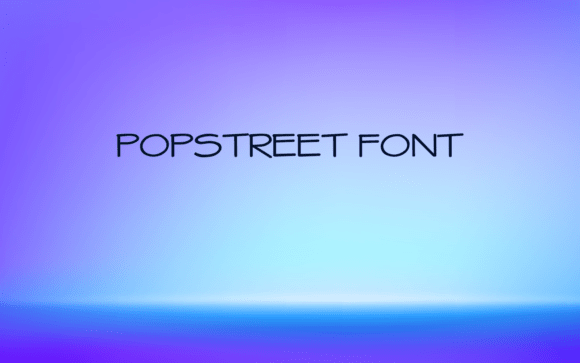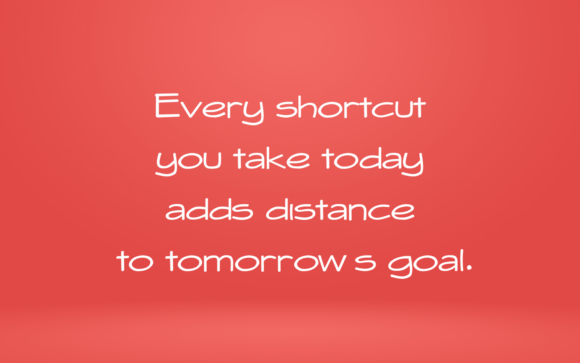
Popstreet Font: A Cute Handwritten Font for Social Media Design
About the Popstreet Font
Get ready to be inspired by Popstreet Font, a fresh and dynamic typeface for modern creators. Popstreet is a lovely and timeless handwritten font. It is the best choice for creating eye catching logos, branding and quotes. Every letter has a unique and beautiful touch, which will make your design come alive!
Popstreet’s expressive, handwritten style excels in headlines, short-form text, and branding applications where a personal touch is desired. It works particularly well for logos, short quotes, and packaging design for products targeting a younger, more casual audience. However, its informal nature makes it unsuitable for body text or lengthy paragraphs, as readability suffers. Avoid using it in UI contexts requiring high legibility.
Pairing Popstreet effectively requires considering its playful energy. A clean, geometric sans-serif like Montserrat would create a strong contrast and modern feel, balancing Popstreet’s hand-drawn informality. Alternatively, a more traditional serif like Garamond could add a touch of elegance and sophistication, grounding the design. Avoid pairing it with other script fonts, as this could lead to visual clutter.
Popstreet projects a friendly and approachable personality, ideal for brands focused on creativity, lifestyle, and community engagement. Its inherent charm makes it unsuitable for projects demanding formality or seriousness.
Popstreet Font Usage Examples
Popstreet Font Example